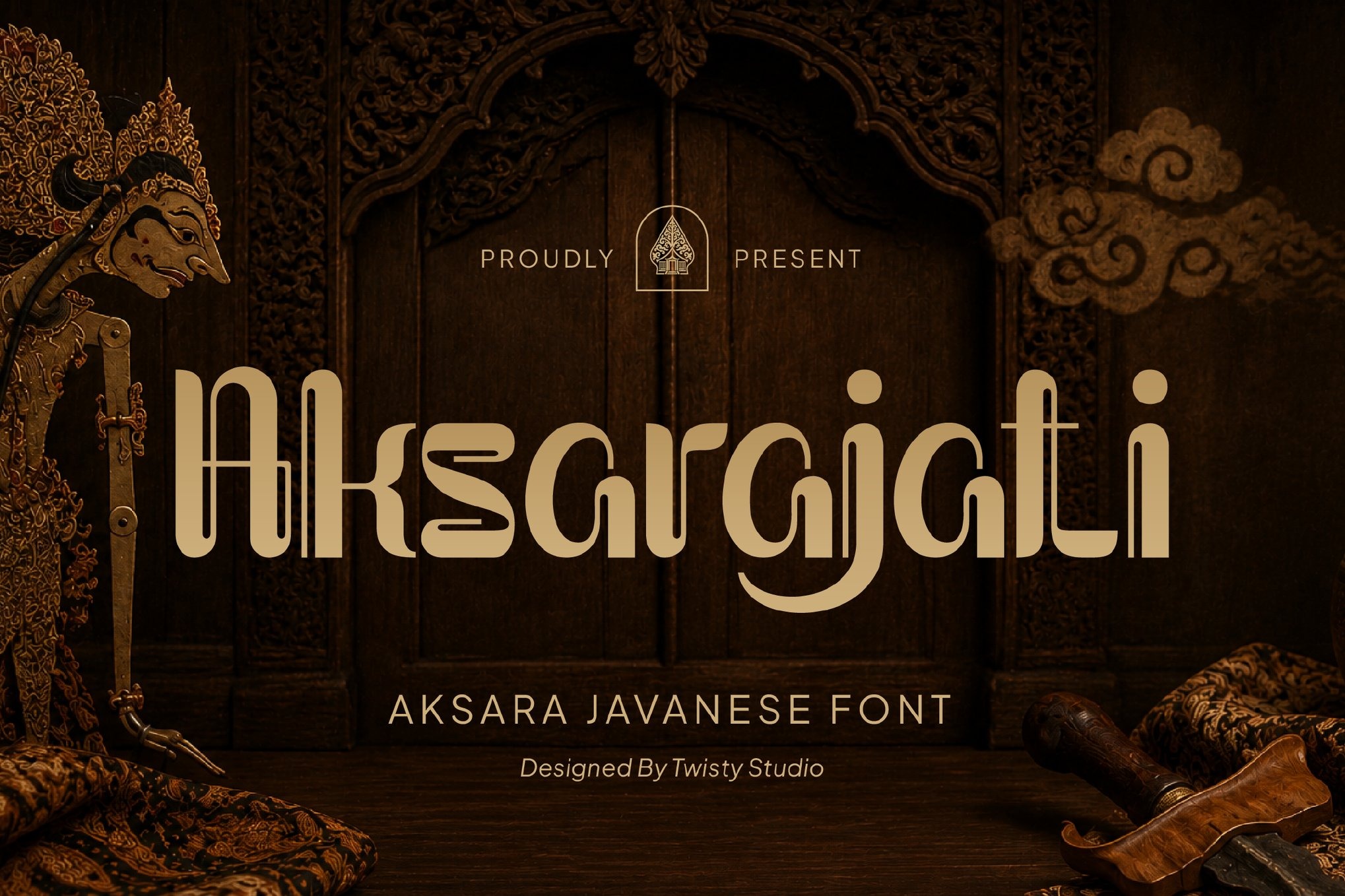
Aksarajati Font
Aksarajati Font is a distinctive and expressive font crafted to bring personality, structure, and creative energy into your projects. Aksarajati is a unique Javanese-inspired display typeface that blends traditional cultural aesthetics with a modern decorative style. Inspired by the beauty of Javanese art and heritage, Aksarajati features expressive letterforms, elegant curves, and artistic details that create a distinctive and memorable visual appearance. Its cultural character brings warmth, authenticity, and creativity into every design, making it perfect for projects that celebrate Indonesian identity with a contemporary touch.